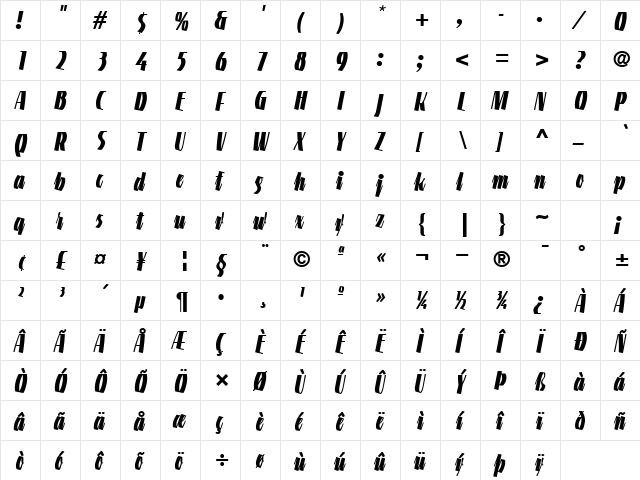
LTGneisenauette Regular Bold Font Preview
LTGneisenauette Regular Bold
LTGneisenauette Regular Bold Font Details
Design Context for LTGneisenauette Regular Typeface
LTGneisenauette Regular offers clean, dependable letterforms without strong stylistic allegiance, making it a practical choice for designers who need flexibility. The heavy weight commands attention and anchors typographic hierarchies.